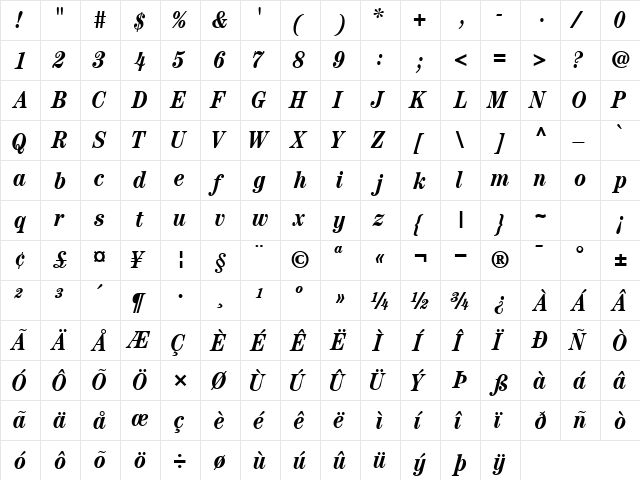
CenturyCondSSK BoldItalic Font Preview
Design Context for CenturyCondSSK Typeface
CenturyCondSSK is a composed and adaptable typeface that performs quietly and consistently across a wide range of design contexts. Its italic angle brings a sense of urgency and motion to the letterforms. The heavy weight commands attention and anchors typographic hierarchies. Its narrow stance lets it pack a punch even in space-constrained designs.
Pro Tip: Try CenturyCondSSK for annotation and caption copy alongside an upright companion — the contrast in angle creates a dynamic but ordered typographic system.